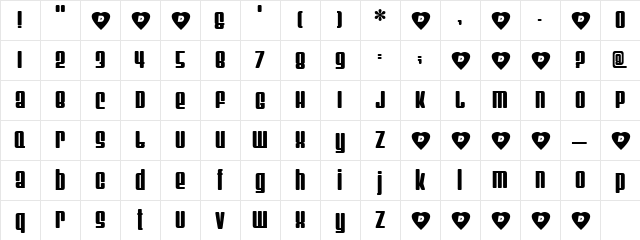
Casey Regular
Design Context for Casey Typeface
Casey offers clean, dependable letterforms without strong stylistic allegiance, making it a practical choice for designers who need flexibility.
Pro Tip: Use Casey in both headline and body roles to test its range before committing to a single application.